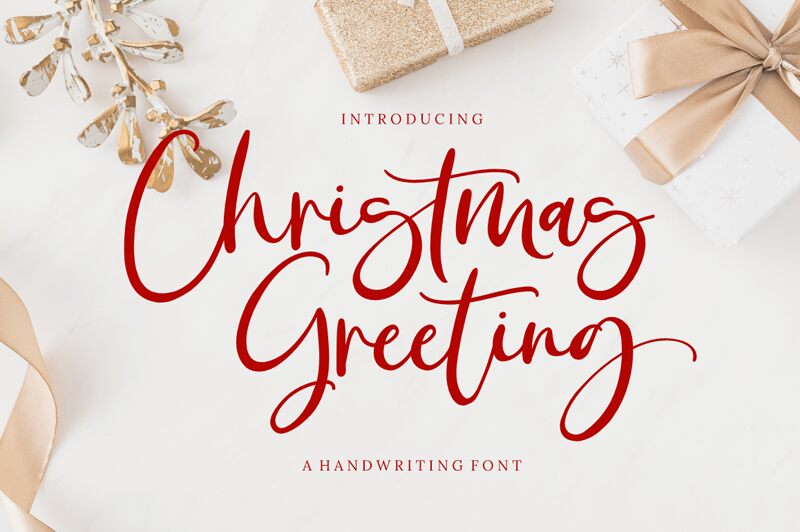
Welcome to the season of joy and celebration with Christmas Greeting, a beautiful calligraphy font designed by Risca Anitawati. With its semi-light weight, this font exudes elegance and sophistication that's perfect for all your holiday projects. Whether you're designing greeting cards, posters, or social media graphics for your brand or personal use, Christmas Greeting adds a touch of warmth and charm to your designs. Its flowing strokes and intricate details make it an ideal choice for creating invitations to Christmas parties, menus for holiday dinners, and even gift tags for presents under the tree. Spread the cheer with Christmas Greeting!